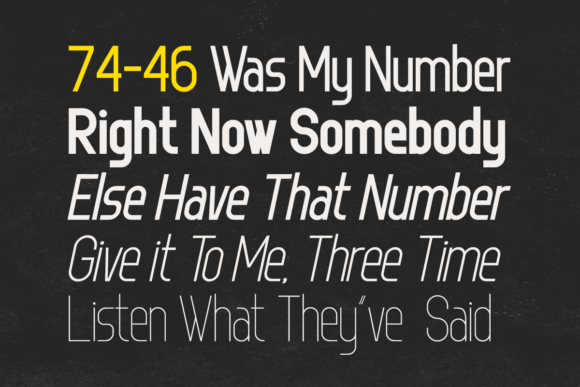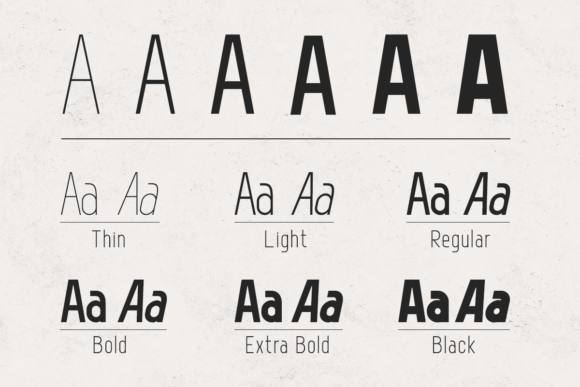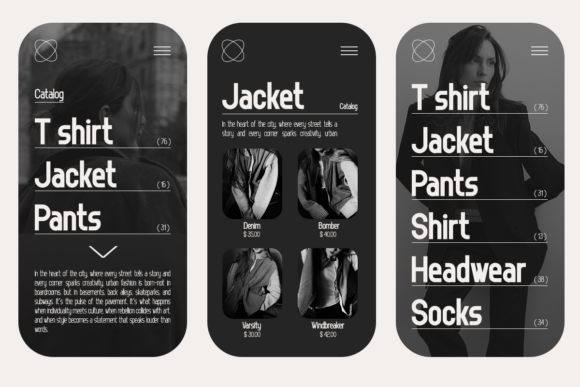
Introduction to Giant Impact Font
Giant Impact is a grotesque with 6 variable weights, Italic, and outline style.
The combination of different heights and weights provides versatility in any text usage and opens a whole new world of possibilities The weight variation delivers a full array of six instances, including all weights ranging from thin to heavy.